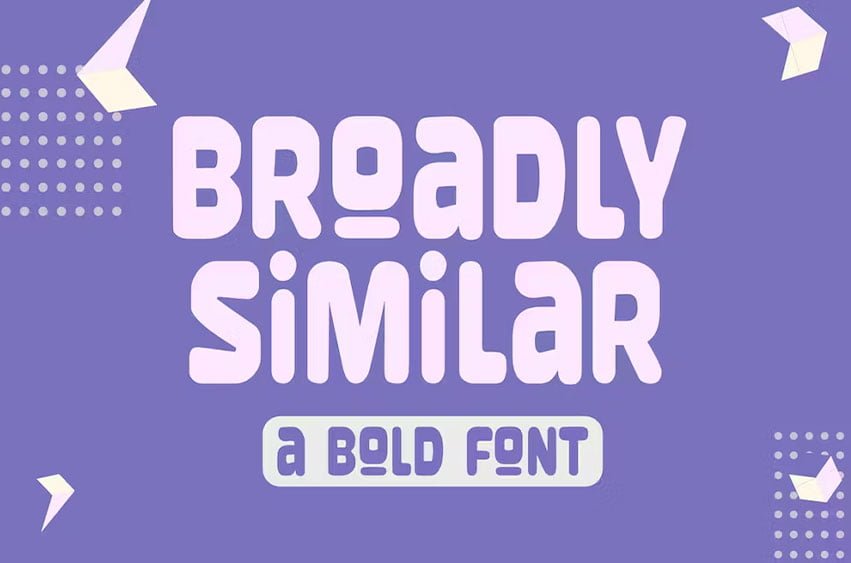
Broadly Similar Font is a cool and retro-styled display font. Add this playful and simple font to your library and notice how it makes your designs come to life.